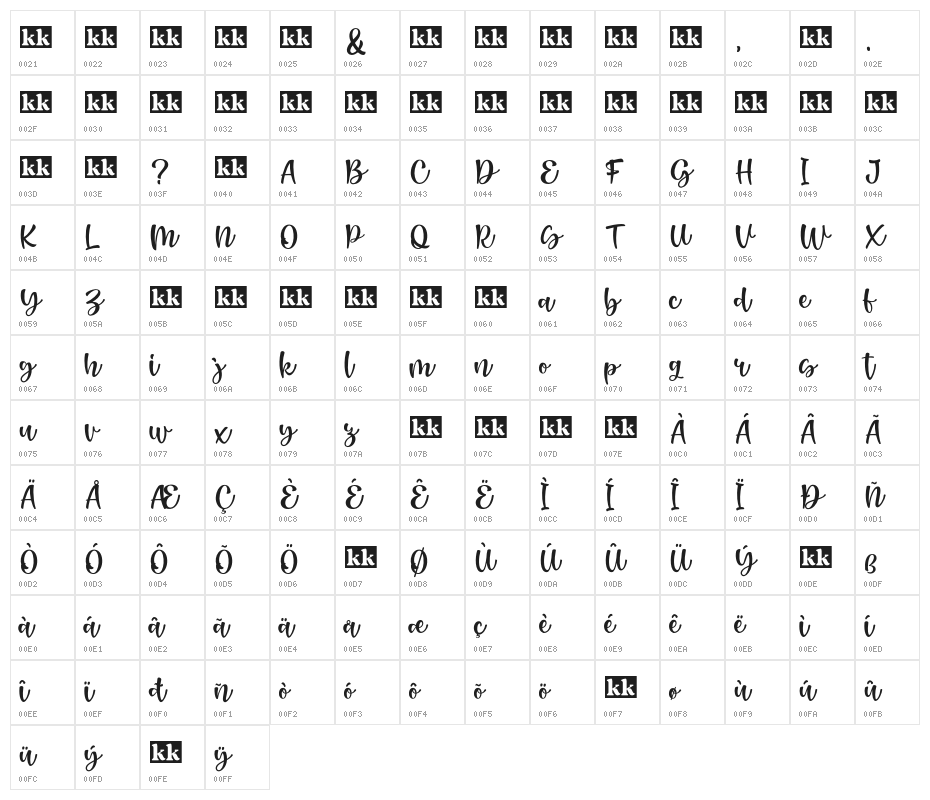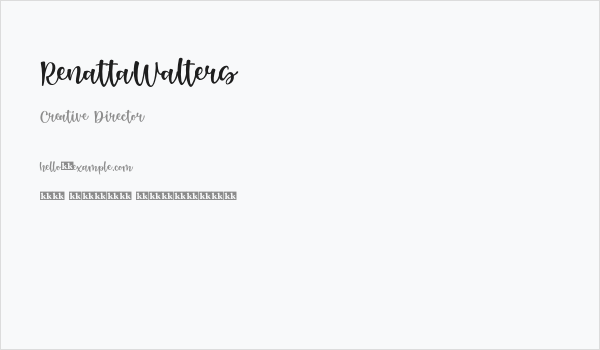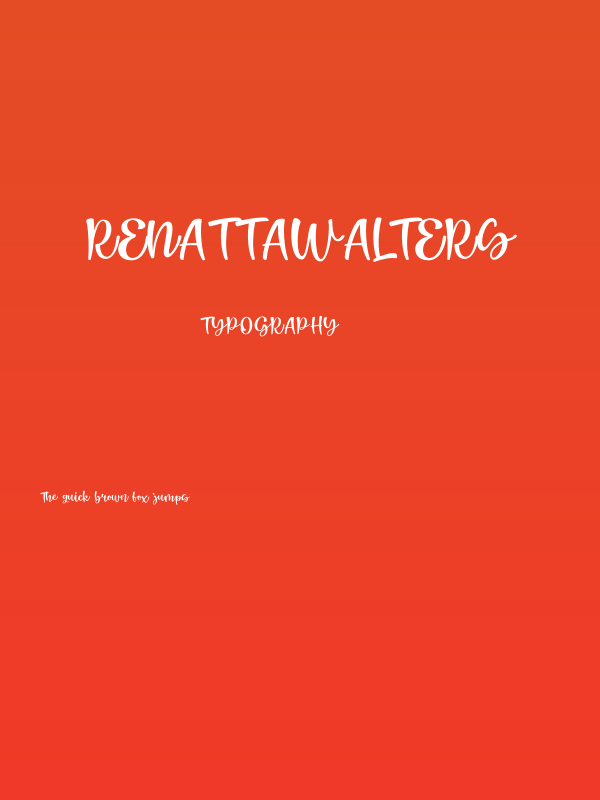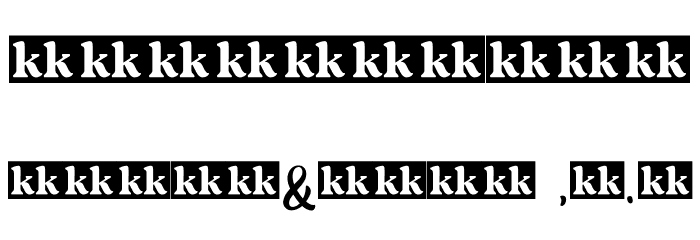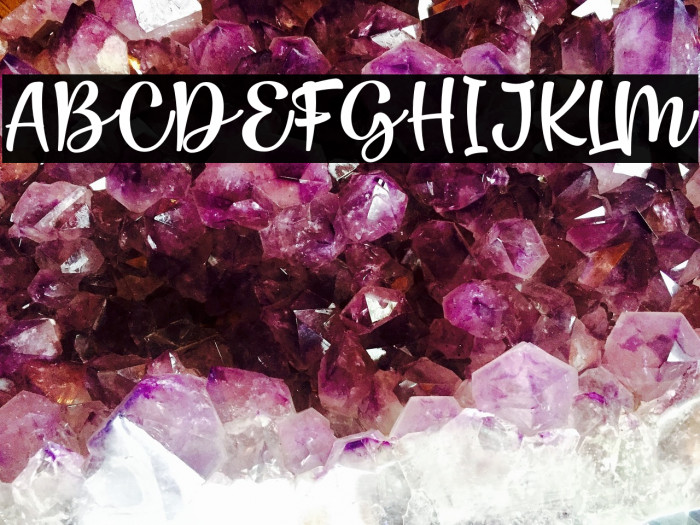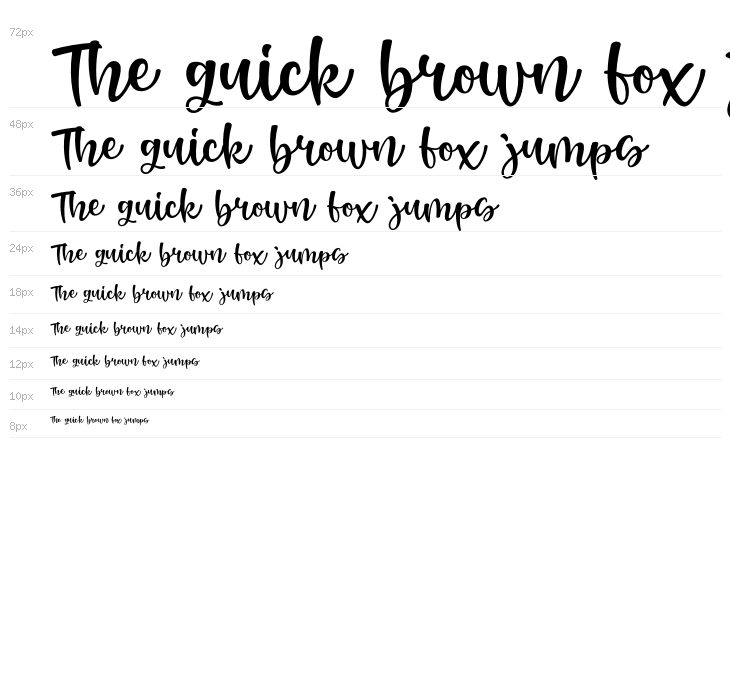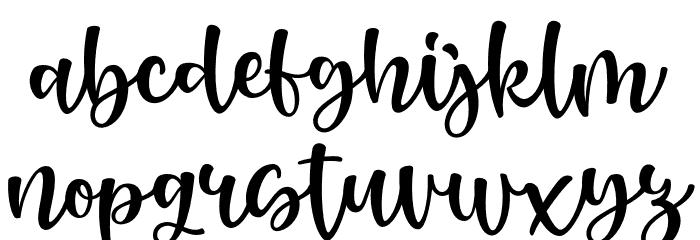
RenattaWalters Font
RenattaWalters Description
This font features a bold and flowing script style, characterized by its smooth, cursive strokes and elegant loops. The uppercase letters are distinct with a playful yet sophisticated flair, while the lowercase letters maintain a consistent rhythm, enhancing readability. The font's design is both modern and timeless, making it versatile for various applications. The numerals and special characters are crafted with the same attention to detail, ensuring a cohesive look across all text elements. Its bold weight and medium contrast in stroke thickness add to its striking appearance, making it suitable for eye-catching designs.